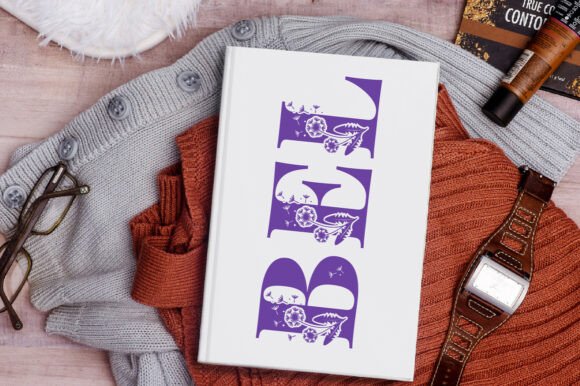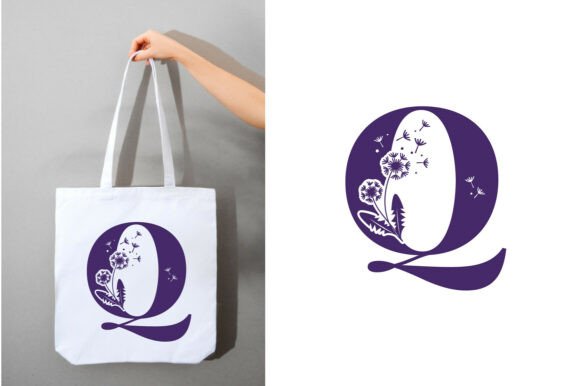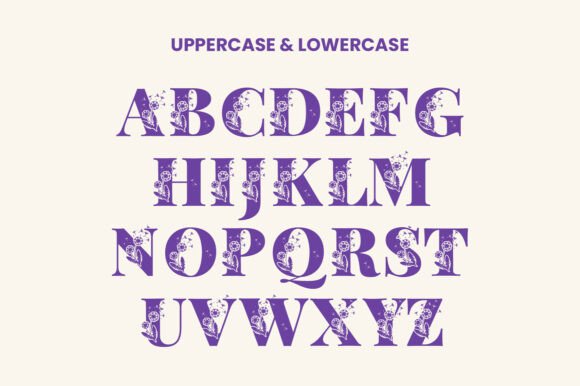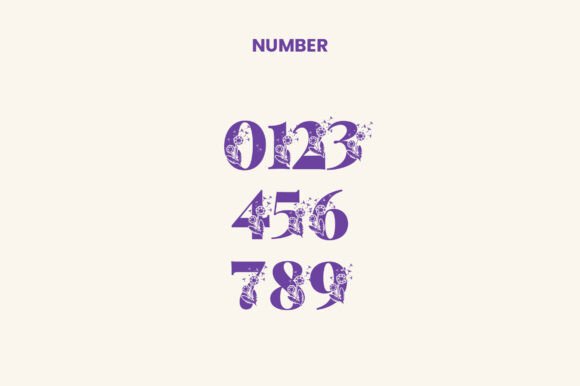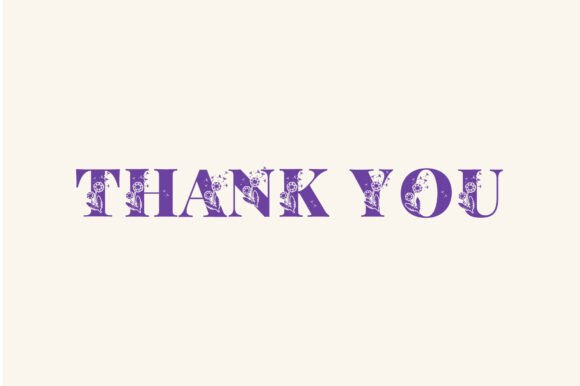
The Dandelion Inside Font: A Decorative Serif Delight
Have you ever been in the middle of a design project, pouring your heart and soul into it, and suddenly realized that something’s missing? For me, that something was a font that could add a touch of elegance and whimsy to my design. That’s when I stumbled upon the Dandelion Inside font, a decorative serif font that has become my new go-to for eye-catching titles, posters, branding, and elegant packaging.
A Design Moment of Truth
I was working on a project for a client who wanted a vintage-inspired logo for their new boutique. I had all the elements ready – the color palette, the illustrations, and the layout – but I just couldn’t find the right font to tie everything together. That’s when I remembered a font I’d seen before, with bold letterforms filled with floral details. A quick search later, and I found Dandelion Inside. It was love at first sight! ✨
• 💯 The unique blend of serif and floral details, giving it an elegant and sophisticated feel
• 🎨 The range of OpenType features, glyphs, and stylistic alternates that allow for endless creativity
• 📦 The font’s versatility, making it perfect for various design projects, from posters to packaging
• 👀 The attention-grabbing quality of the font, perfect for titles and headings
While Dandelion Inside is an amazing font, there are a few things to keep in mind: ⚠️ It may not be the best choice for body text, as its decorative nature can be overwhelming for longer blocks of text. 🤔 Additionally, some of the more intricate details may not render well at smaller font sizes.
The Designer Inspiration Behind Dandelion Inside
According to its creators, Dandelion Inside was inspired by the beauty of nature and the artistry of vintage design. The font’s unique blend of serif and floral details is meant to evoke a sense of elegance and sophistication, while also paying homage to the natural world. 🌼
Q: What is Dandelion Inside font?
A: Dandelion Inside is a decorative serif font with bold letterforms filled with floral details, perfect for eye-catching titles, posters, branding, and elegant packaging.
Q: What design projects is Dandelion Inside best suited for?
A: Dandelion Inside is ideal for designs that require a touch of elegance and sophistication, such as posters, logos, branding, and packaging.
Q: Can I use Dandelion Inside for body text?
A: While Dandelion Inside is a beautiful font, it may not be the best choice for body text, as its decorative nature can be overwhelming for longer blocks of text.
Q: Is Dandelion Inside easy to use?
A: Yes, Dandelion Inside is relatively easy to use, especially for designers familiar with OpenType features and glyphs. The font comes with a range of features that allow for endless creativity and customization.